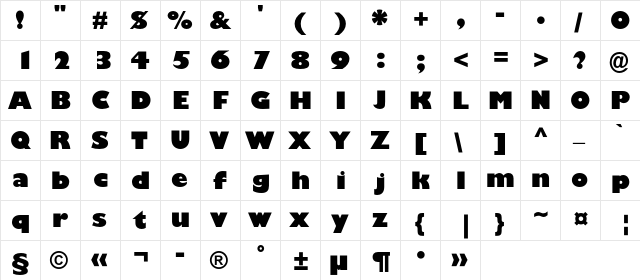
GillSansBlackC Regular
Design Context for GillSansBlackC Typeface
GillSansBlackC offers clean, dependable letterforms without strong stylistic allegiance, making it a practical choice for designers who need flexibility.